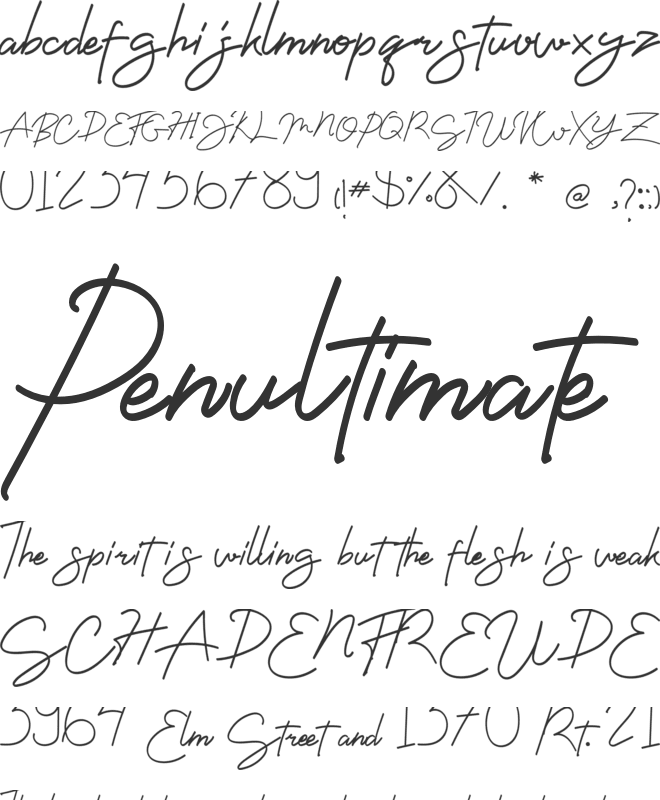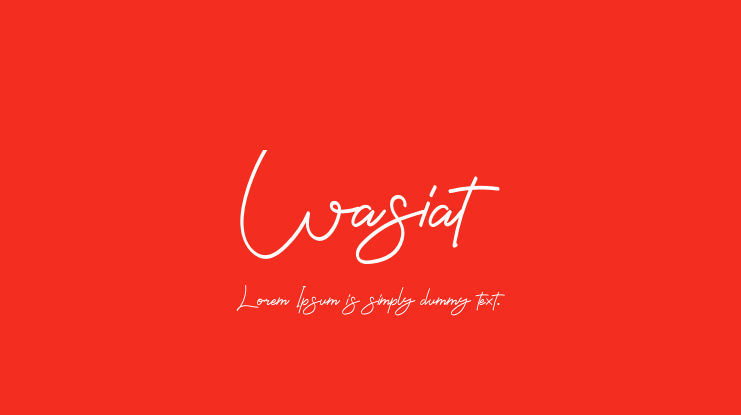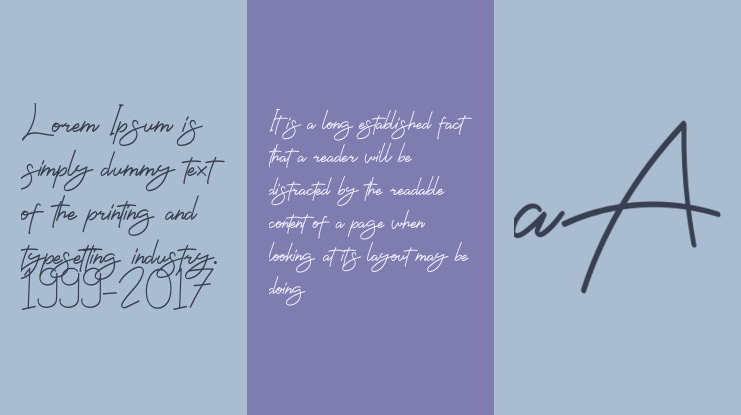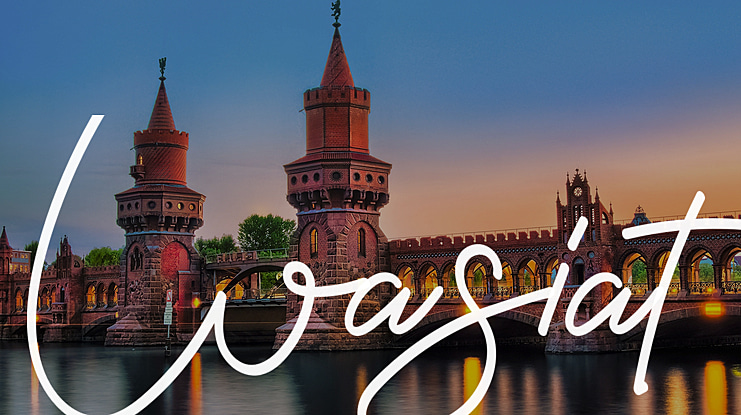
Wasiat Font
It’s a handwritten script typeface inspired by natural and aesthetic hand touches. WASIAT is perfect for any branding projects including but not limited to logotype, social media posts, advertisements, product packaging, product designs, label, photography, wedding invitation, stationery and any projects that require elegant handwriting taste.